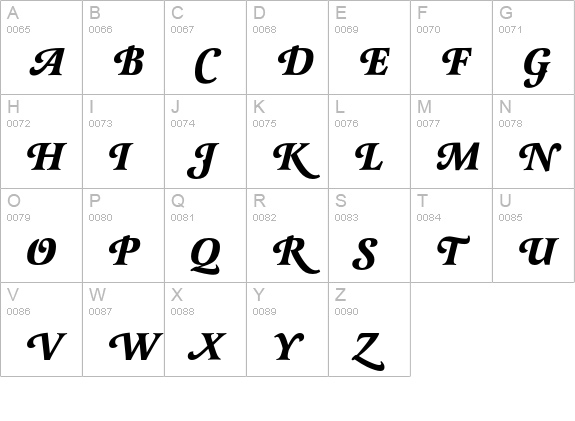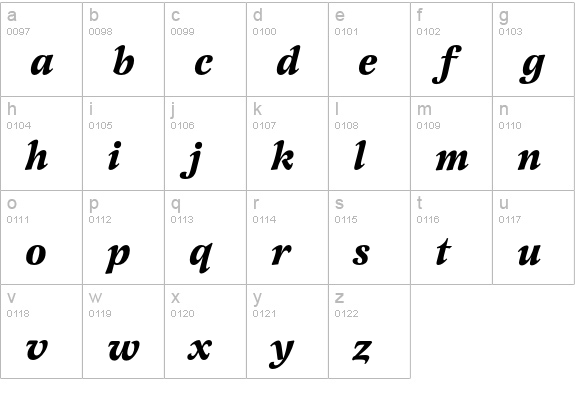
LatienneEF-BoldItalicSwC Font Details
LatienneEF-BoldItalicSwC is a stunning and elegant font that effortlessly combines boldness with an exquisite italic style. With its graceful curves and sophisticated design, this typeface is perfect for adding a touch of sophistication and charm to any project. The free-flowing nature of LatienneEF-BoldItalicSwC captures attention and conveys a sense of fluidity and movement. Its bold strokes give it a strong presence, making it ideal for headings and titles that require emphasis and impact. The italic style adds a touch of elegance and sophistication, making it perfect for invitations, wedding stationery, and high-end branding. This font is not only visually appealing but also highly practical, as it is easy to read even at smaller sizes. Whether used in print or digital media, LatienneEF-BoldItalicSwC ensures that your message is conveyed with clarity and style. One of the best aspects of this font is that it is freely available to download at FontsMarket.com. This means that you can easily access and use this beautiful typeface in your design projects without any cost. Whether you are a professional designer or a casual enthusiast, this font offers you the opportunity to enhance your creations with a touch of elegance and sophistication, all without breaking the bank. Overall, LatienneEF-BoldItalicSwC is a versatile and visually captivating font that adds a touch of elegance and charm to any project. Its boldness and italic style make it perfect for a wide range of applications, from branding and advertising to invitations and stationery. Best of all, it is freely available to download at FontsMarket.com, making it accessible to anyone who wants to elevate their designs to new heights.